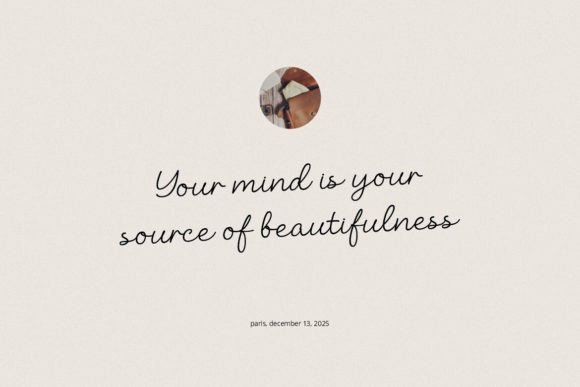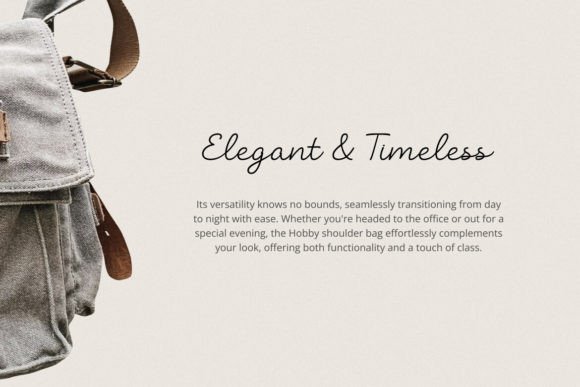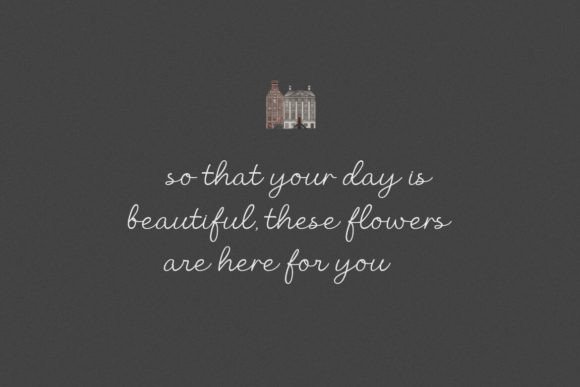
Beauty Story Font
Beauty Story Font is a clean and modern handwriting font carefully created with a touch of elegance. Whether you’re looking for fonts for Instagram or calligraphy scripts for DIY projects, this font will turn any creative idea into a true piece of art!. This font is perfect also for creating print templates like posters, branding, quotes, blog titles, fashion, invitations, greeting cards, business cards, clothing, stationery or anything else.